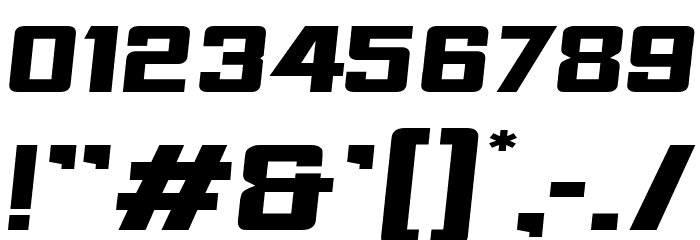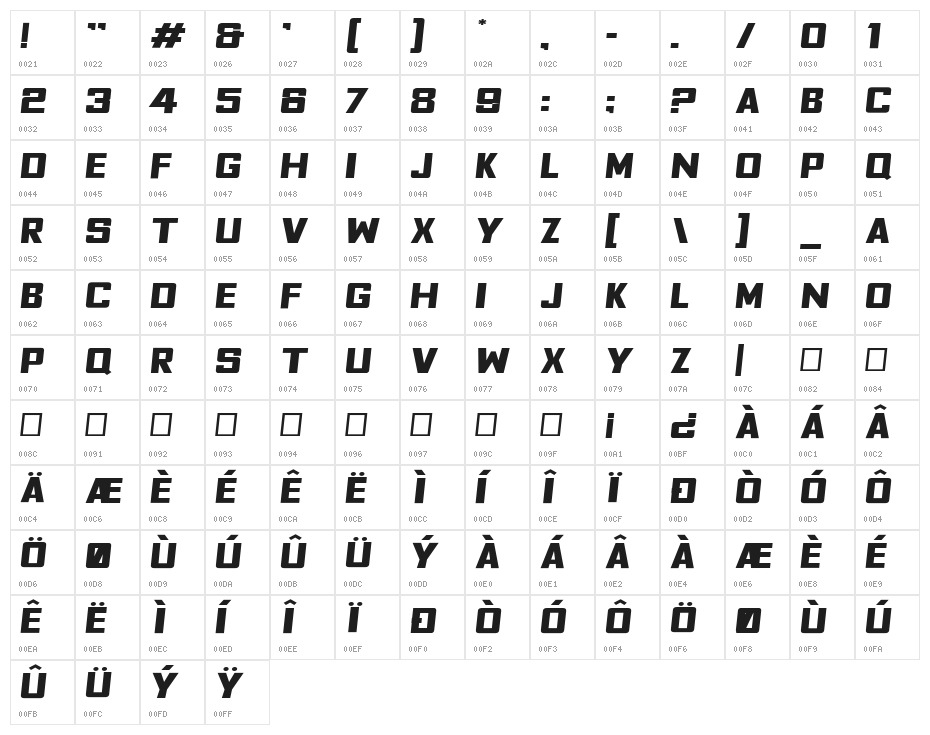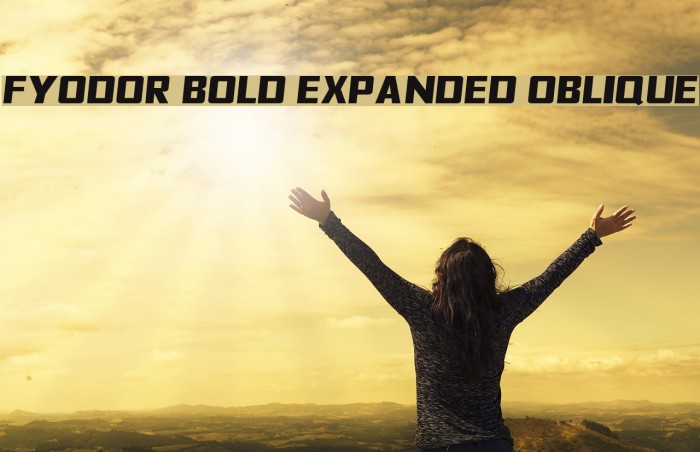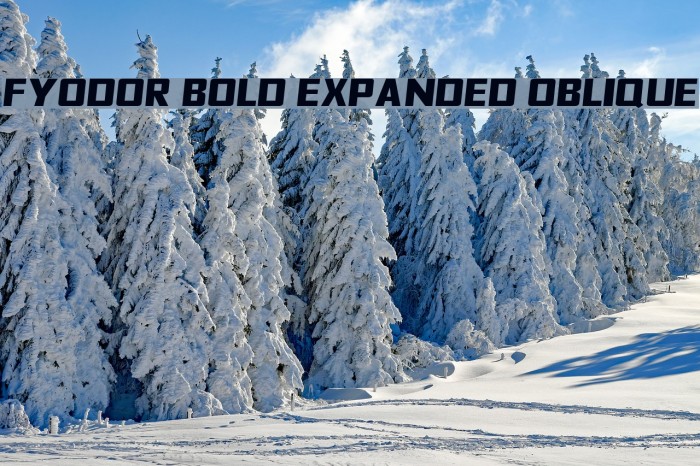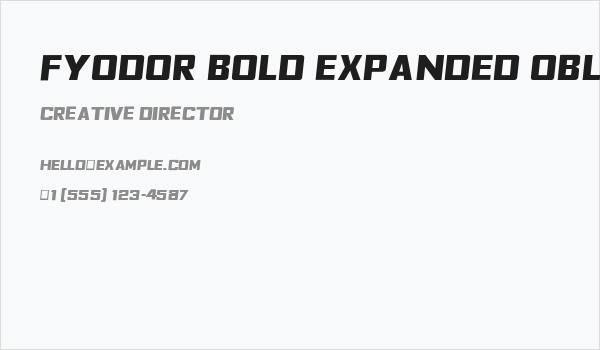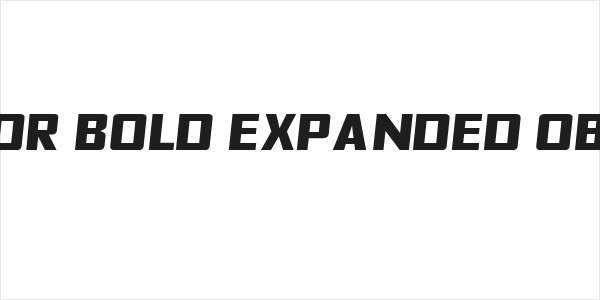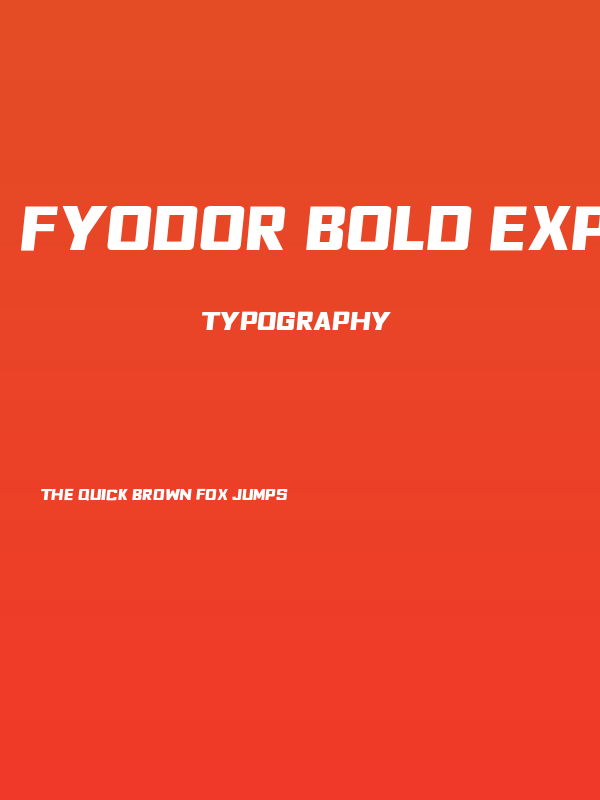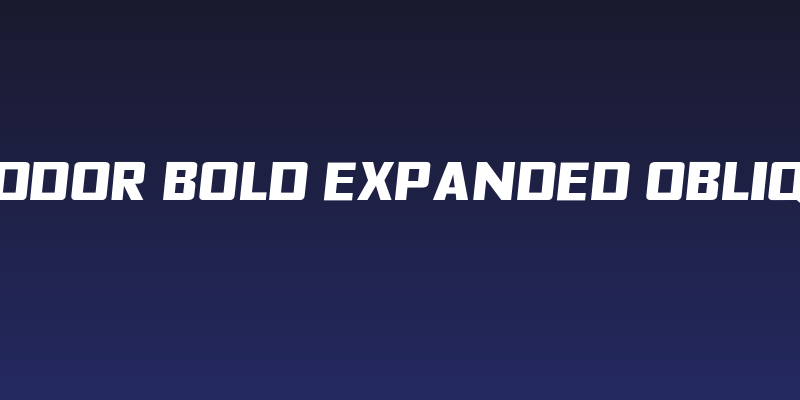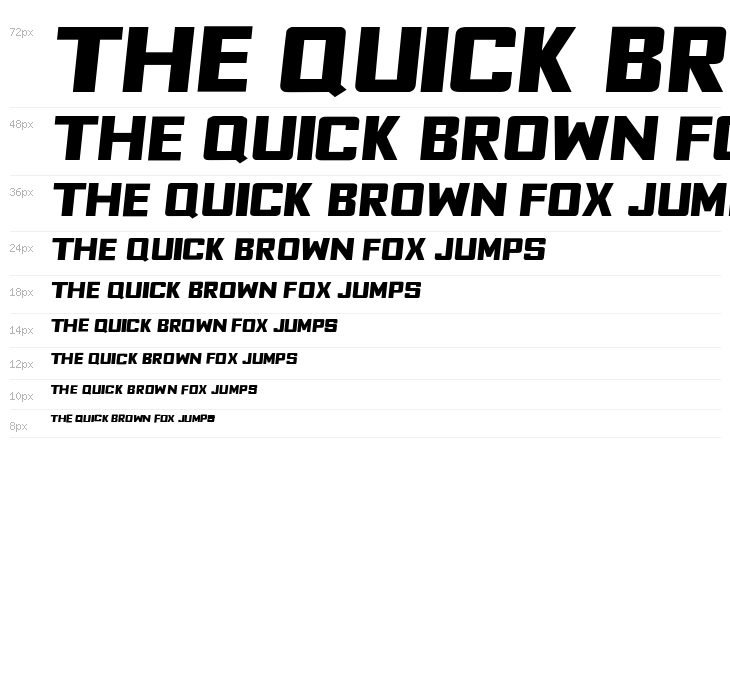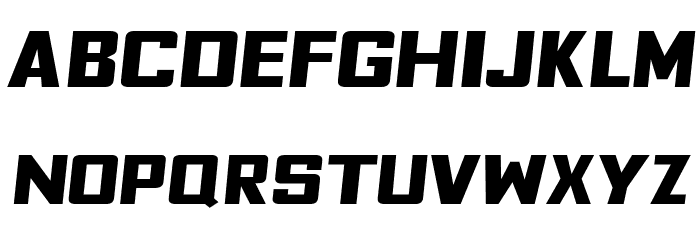
Fyodor Bold Expanded Oblique Font
Fyodor Bold Expanded Oblique Description
This font features a bold and expanded style with an oblique slant, giving it a dynamic and modern appearance. The uppercase and lowercase letters are designed with strong, thick strokes that enhance readability while maintaining a distinctive look. The numbers and special characters follow the same bold and slanted style, ensuring consistency across all glyphs. The expanded width of the characters provides a sense of openness and space, making it suitable for impactful headlines and titles. The font's oblique nature adds a sense of motion and energy, making it ideal for projects that require a contemporary and assertive aesthetic.
| Proposed Projects | Ideal for headlines, posters, branding, and advertising materials that require a bold and modern look. |